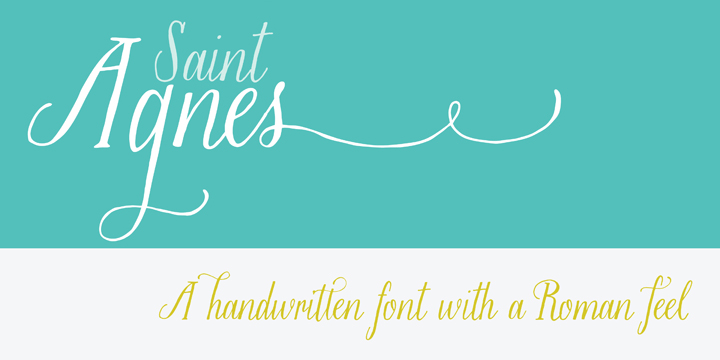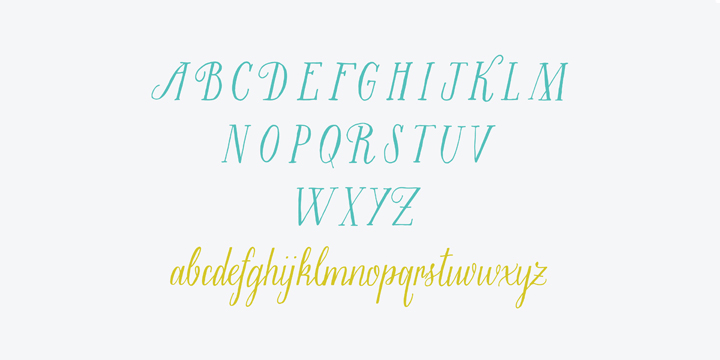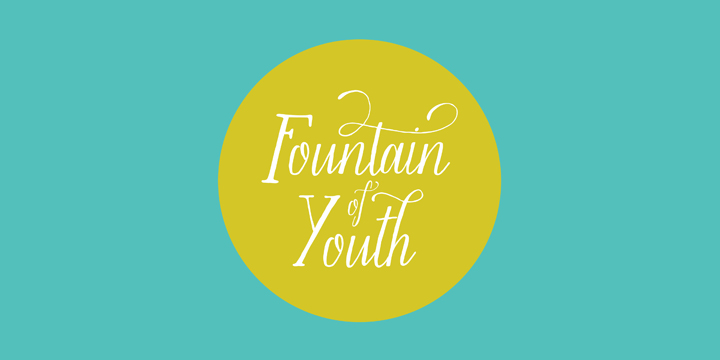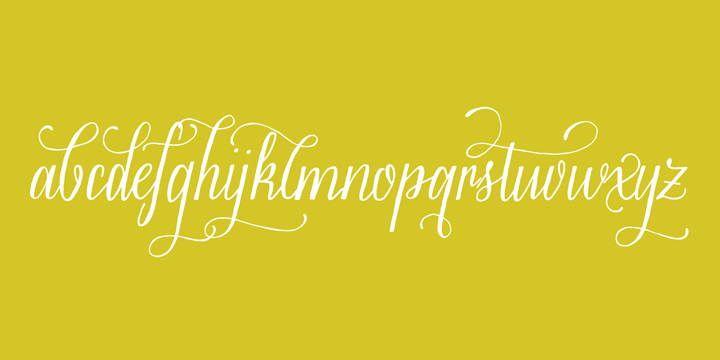
Saint Agnes
Font Family by Great Lakes Lettering
Saint Agnes is quintessential Molly Jacques. It has the feeling of a Roman serif font, with the informal quality of a handwritten font. It's perfect for applications from scrapbooking to wedding invitations. It's got a formal yet handmade quality that is so hard to find. It comes with contextual swashes and discretionary ligatures, not to mention word-ending swashes that must be seen to be believed.